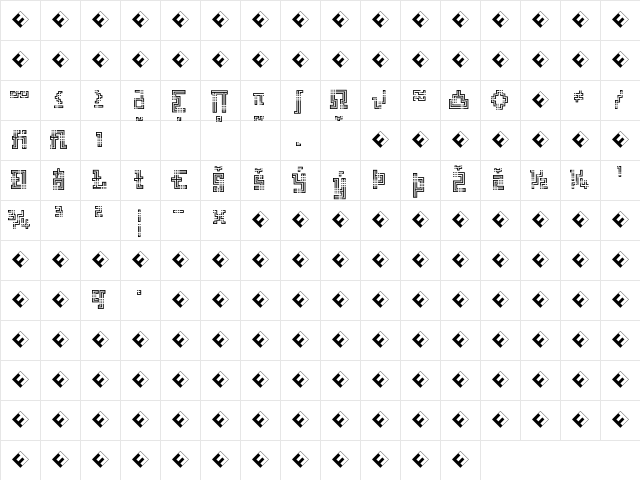
Complete Archian BoogieWoogieExpert glyph index. Displaying only characters natively supported by Archian BoogieWoogieExpert font.
Archian is a composed and adaptable typeface that performs quietly and consistently across a wide range of design contexts.